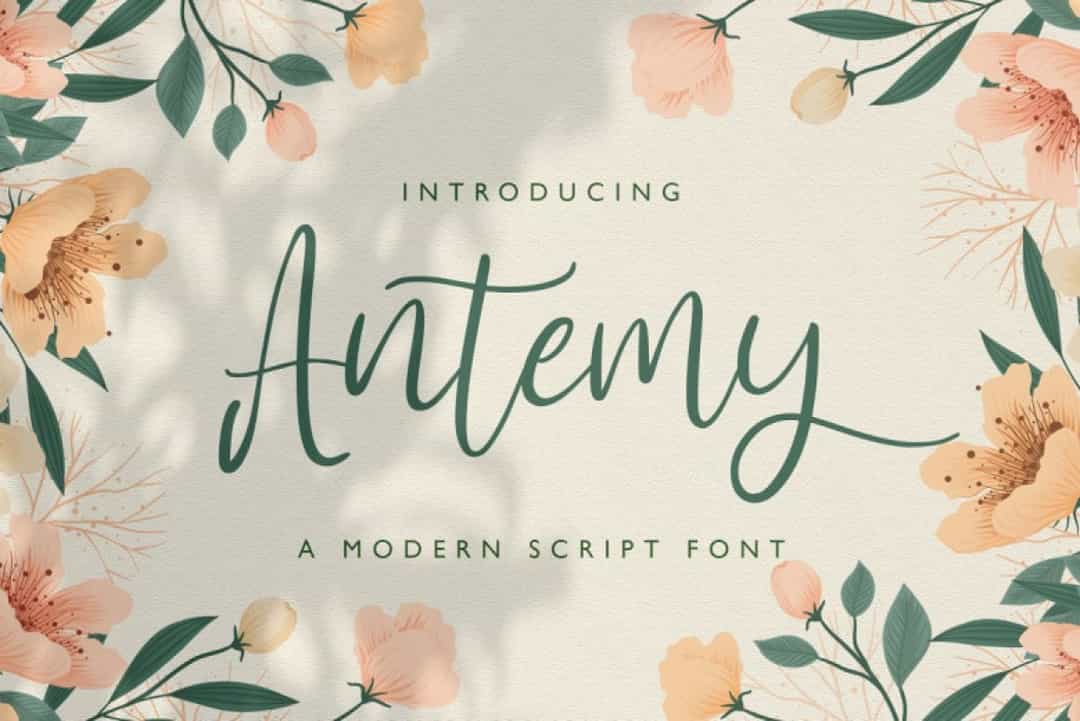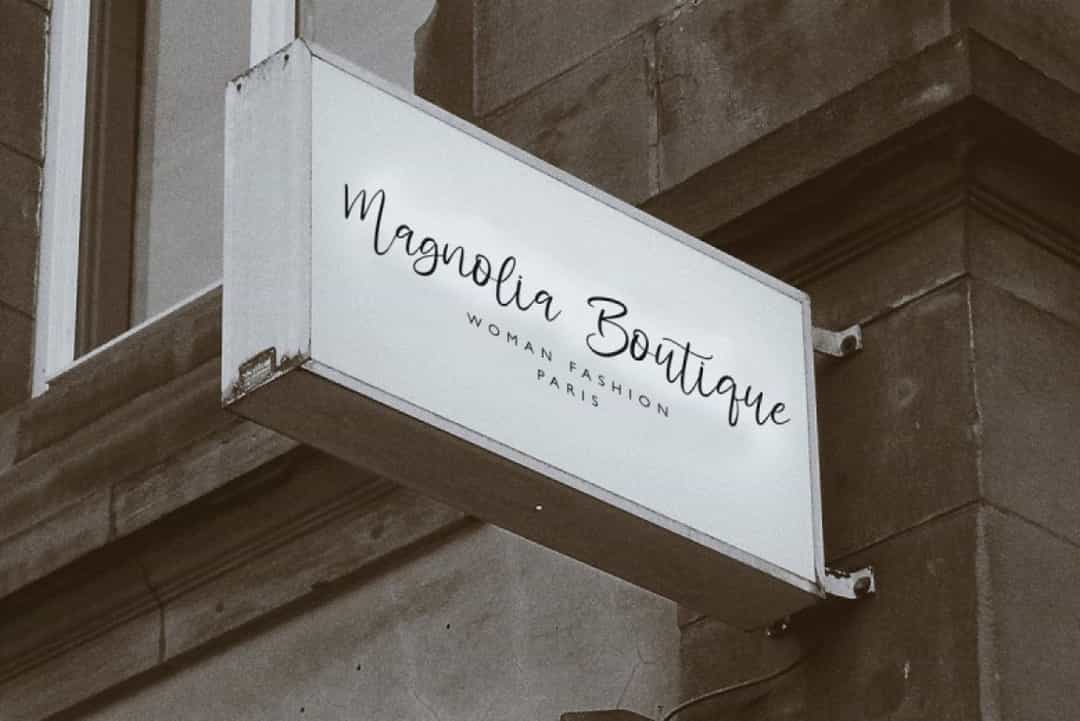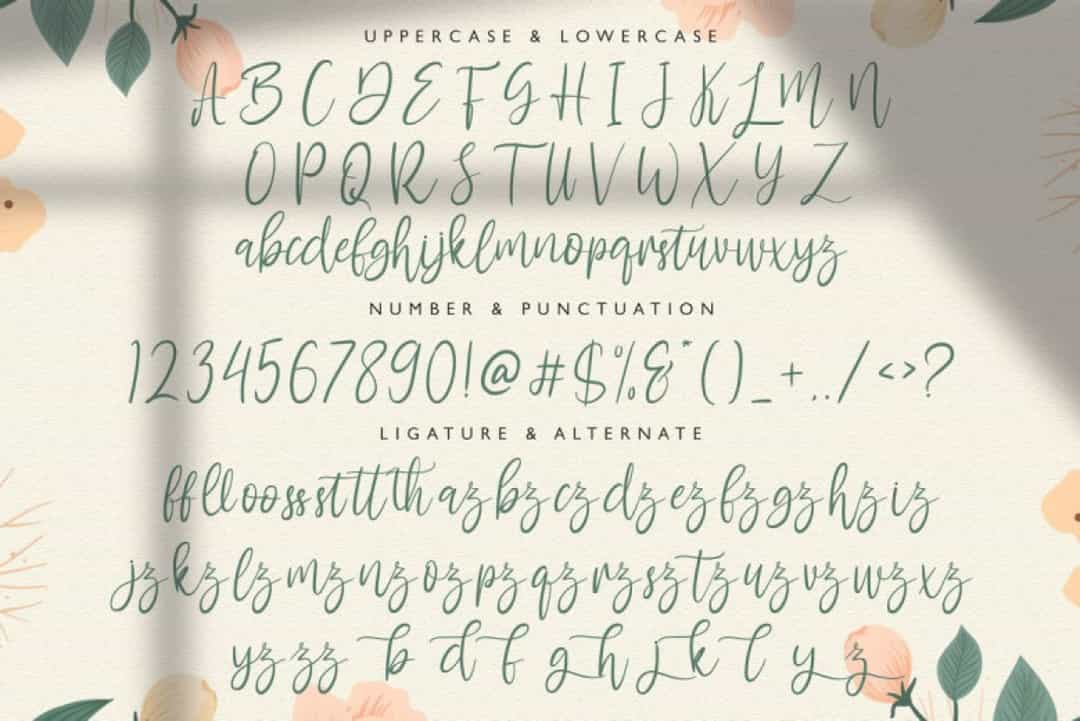
Antemy is a script font that is best used for branding and wedding design, wedding invitation headings invitations signatures labels logos and more! PUA encoded, Antemyis can now use all of its characters with no problem at all!